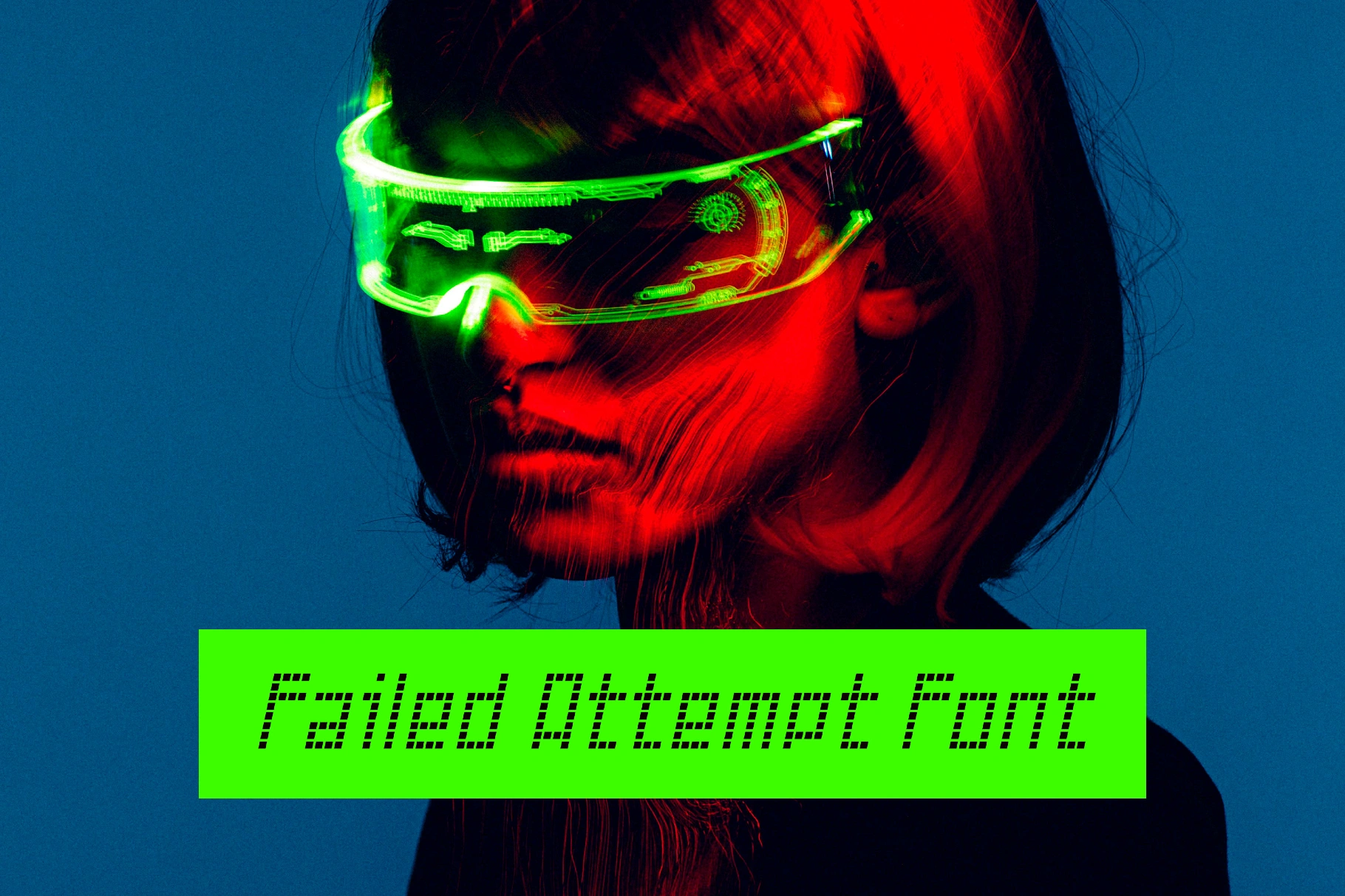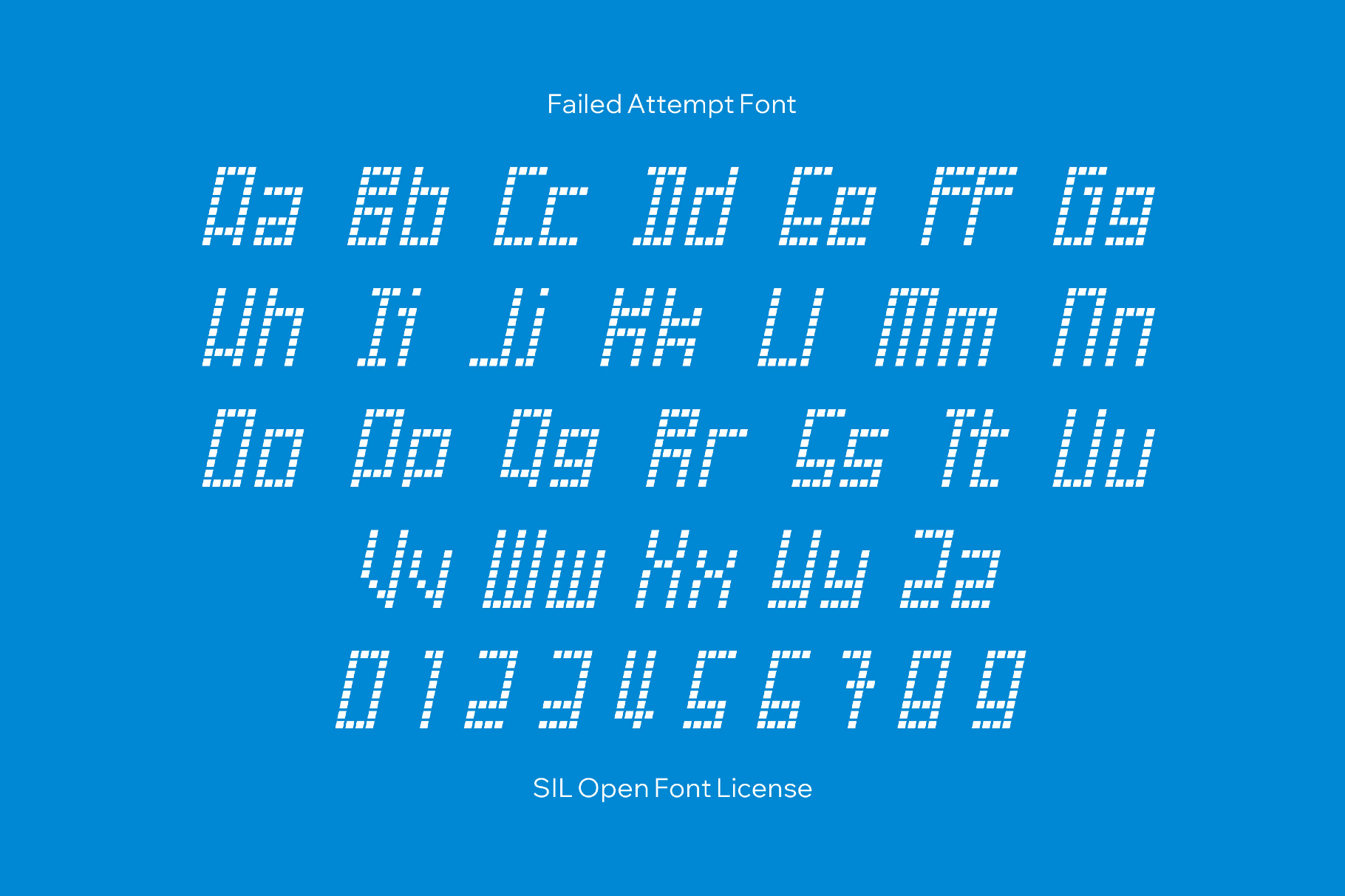
Failed Attempt Font
This LED-style font spaces out its pixels into broken strokes and recalls photocopied punk flyers and DIY collage from the ’80s and ’90s. Its flickering, unfinished look of geometric letterforms works well for rebellious posters, magazine and editorial headlines, indie album art, sticker graphics, scoreboard or timer mockups, edgy branding concepts, social promos, and rough-cut motion titles.